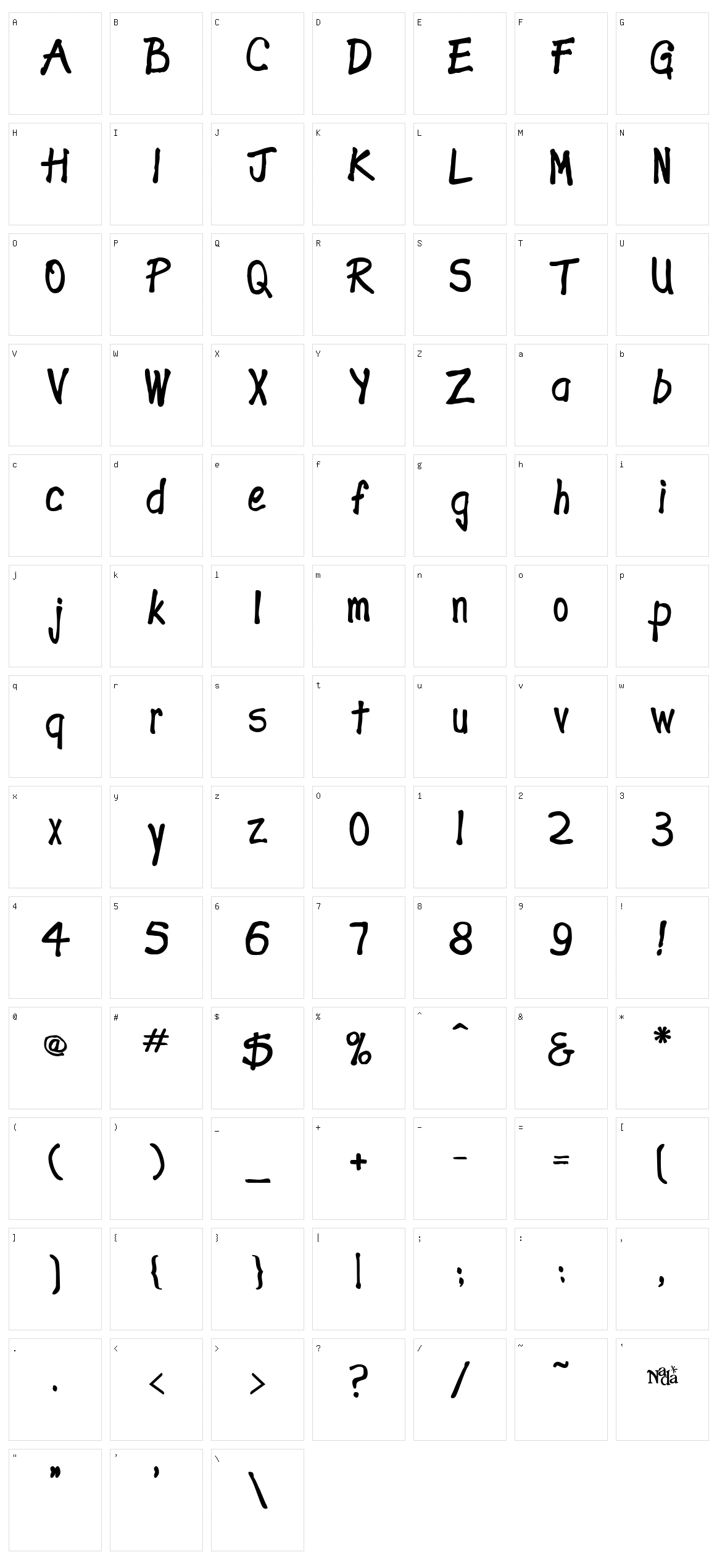
"Expletive Deleted" is the 32nd free font from Rich Gast.
***SPECIAL CHARACTERS ARE USED IN THIS FONT - READ BELOW***
The character set includes:
Upper and lower case letters and numbers.
Most punctuation, however, no international characters. Sorry!
***NOTE: 10 special scratch-out keystrokes (ALT0191 through ALT0200)
***Here's how it works. The ketstrokes ALT0191 through ALT0200 result
in a scratch-out character specially spaced so as to scratch out the
word or letters immediately FOLLOWING the special keystroke. ALT0191
is the shortest scratch-out character, suitable for just a letter or
two. ALT0200 is the longest scratch-out character, suitable for a word
of about 12 letters. ALT0192 through ALT0199 have scratch-out widths
that fall in between the two extremes. Type the scratch-out character
immediately BEFORE the word or letters you wish to scratch out. You
can still read the scratched out word through the scratches! Have fun.